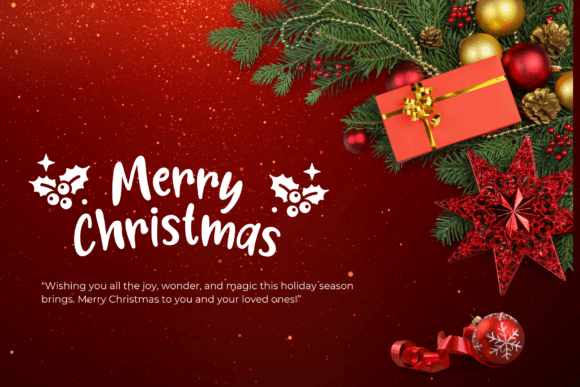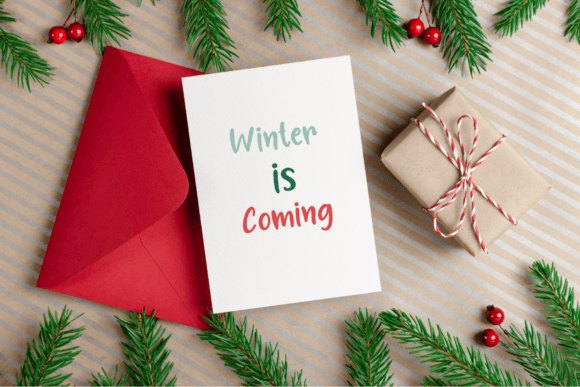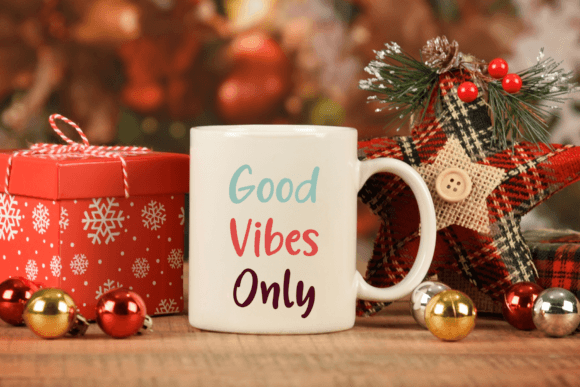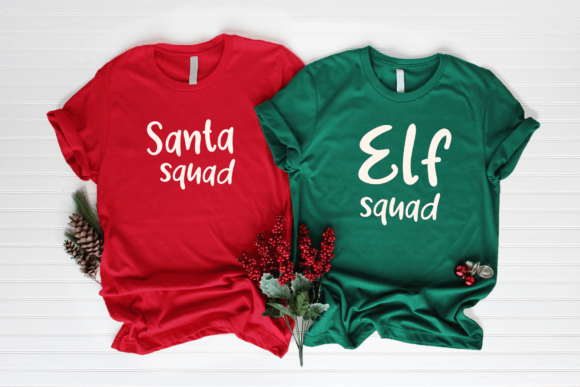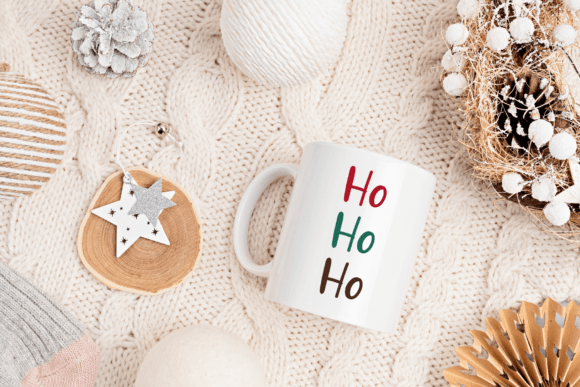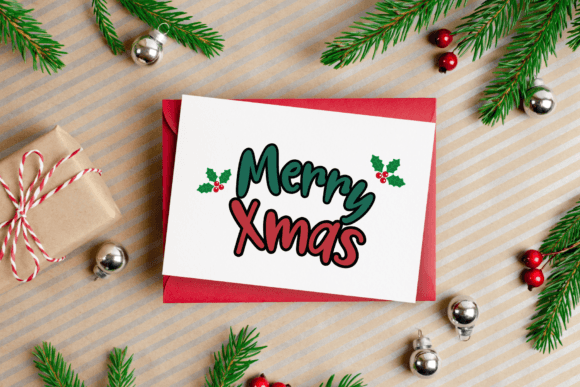
When the Perfect Font Strikes Inspiration
Have you ever been in the midst of a creative project, staring at a blank page or screen, desperately searching for that elusive spark that brings your design to life? It’s a feeling we’ve all experienced at some point or another, and it’s exactly this moment of uncertainty that makes the discovery of the perfect font so exhilarating.
Enter Blustery Font, a charming handwritten font that embodies the very essence of playfulness and authenticity. Designed to add a touch of whimsy to any project, Blustery Font is the perfect choice for designers looking to inject some personality into their work. Whether it’s a blog post, logo, or invitation, this font is sure to elevate your designs and leave a lasting impression.
Key Features of Blustery Font
- Unique Character Set: Features a unique set of 500+ glyphs, including alternate characters, ligatures, and ornaments, to add depth and visual interest to text.
- Font Weight: Offers a range of font weights, from Light to Extra Bold, allowing designers to achieve a wide range of visual effects and moods.
Blustery Font Review
Overall, I was quite excited to dive into the Blustery Font, with its promise of capturing the essence of a windy day. And I must say, it delivers on that promise.
- The font’s unique character set, with special characters designed to resemble wind-blown debris, adds a playful touch to any design.
- The font’s weight range is well-executed, with a clear distinction between the light and bold versions.
- The font’s legibility is quite good, even at smaller font sizes.
- The font’s kerning could be improved, particularly for certain character combinations.
- The font’s vertical metrics are a bit off, which can affect the overall alignment of text.
- The font’s design may not be suitable for all types of content, particularly formal or professional writing.
Overall, I’d give the Blustery Font 3.5 out of 5 stars. It’s a fun, unique font that’s perfect for casual or creative projects, but it may not be the best choice for more formal or demanding applications.
Tips for Getting the Most Out of Blustery Font
Blustery Font is ideal for creating attention-grabbing headlines and titles. To get the most out of it, use it sparingly and pair it with a clean, simple font for body text.
Alternatives to “Blustery Font” for Designers
Great Vibes Font is a modern, elegant script font that is ideal for creating a sophisticated and refined look. It is perfect for use in wedding invitations, event promotions, and luxury branding.
Compared to Blustery Font, Great Vibes Font is more refined and elegant, making it suitable for high-end designs. While Blustery Font has a more playful and whimsical feel, Great Vibes Font exudes a sense of sophistication and luxury.
Carolyna Pro Font is a high-end script font that is designed for luxury branding, wedding invitations, and high-end event promotions. It features elegant and refined letterforms with a touch of sophistication.
Compared to Blustery Font, Carolyna Pro Font is more elegant and refined, making it suitable for high-end designs. While Blustery Font has a more playful and whimsical feel, Carolyna Pro Font exudes a sense of luxury and sophistication.
Alex Brush Font is a elegant script font that is perfect for creating a sophisticated and refined look. It is ideal for use in wedding invitations, event promotions, and luxury branding.
Compared to Blustery Font, Alex Brush Font is more elegant and refined, making it suitable for high-end designs. While Blustery Font has a more playful and whimsical feel, Alex Brush Font exudes a sense of sophistication and luxury.
Q: What is the recommended font size for using Blustery Font in print and digital designs?
The recommended font size for Blustery Font varies depending on the design context. For body text, we recommend a minimum font size of 12 points in print and 14 points in digital designs. For headings, you can use font sizes ranging from 18 to 48 points, depending on the design requirements and legibility considerations.